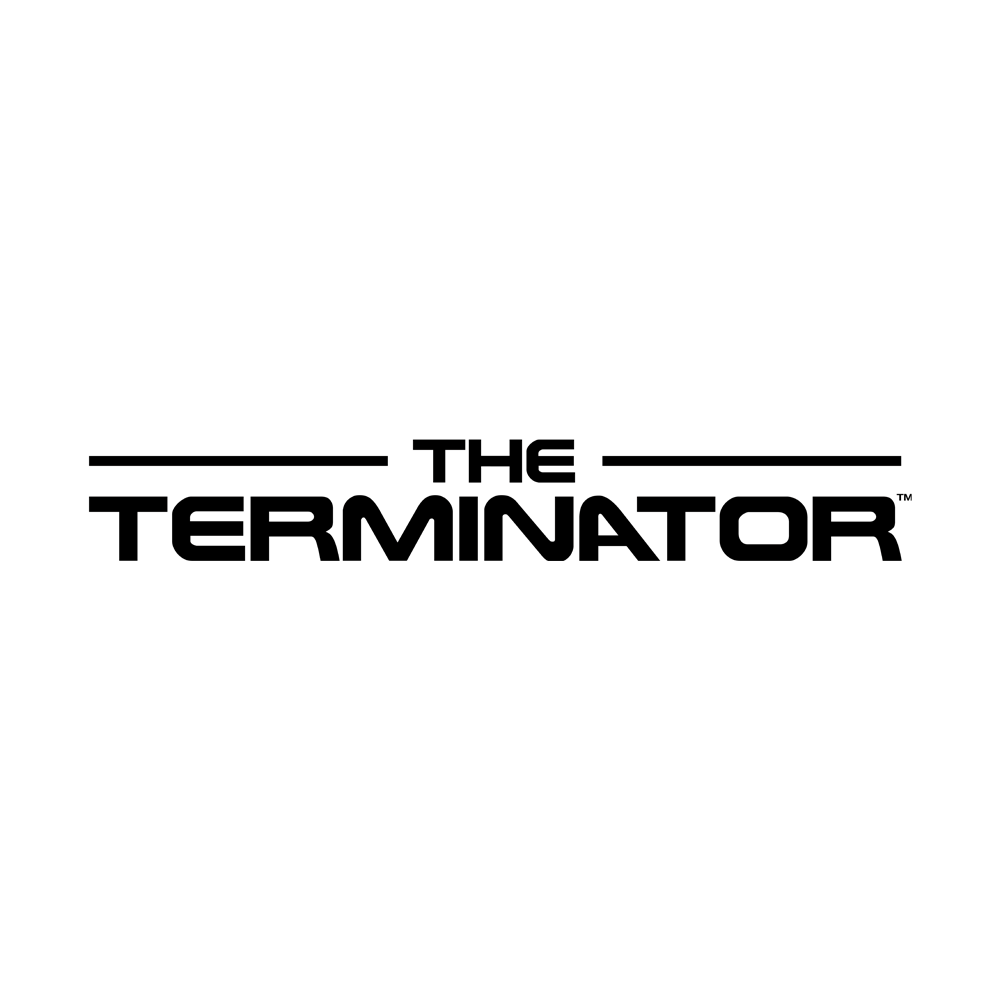
Terminator Font
Movie & TVThe Terminator is a sci-fi franchise starting with a 1984 film about a killer robot sent from a post-apocalyptic future to eliminate a key figure's mother. The series, through numerous sequels, explores fate, free will, AI, and the human-machine conflict, showcasing various Terminators and human heroes in a dire battle for the future.
The Terminator logo font has been recreated as Terminator Real NFI by Thomas W.Otto. The font is free for personal use.